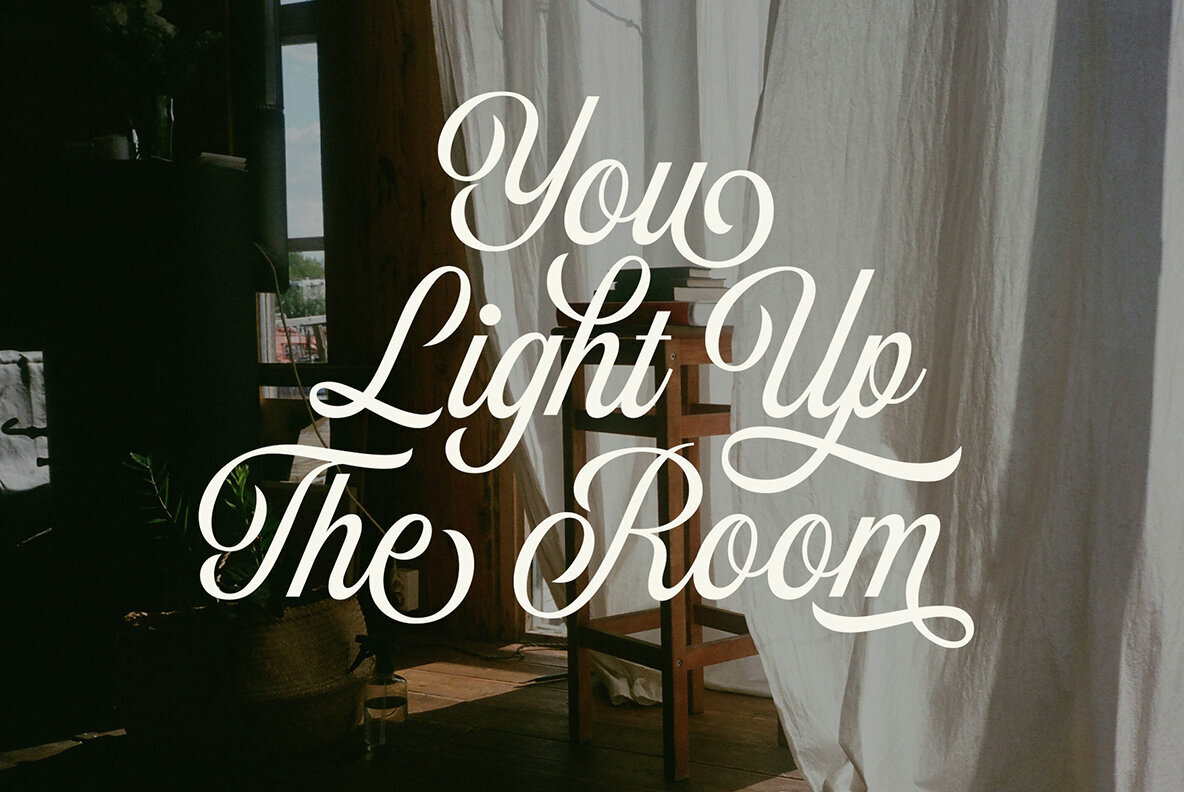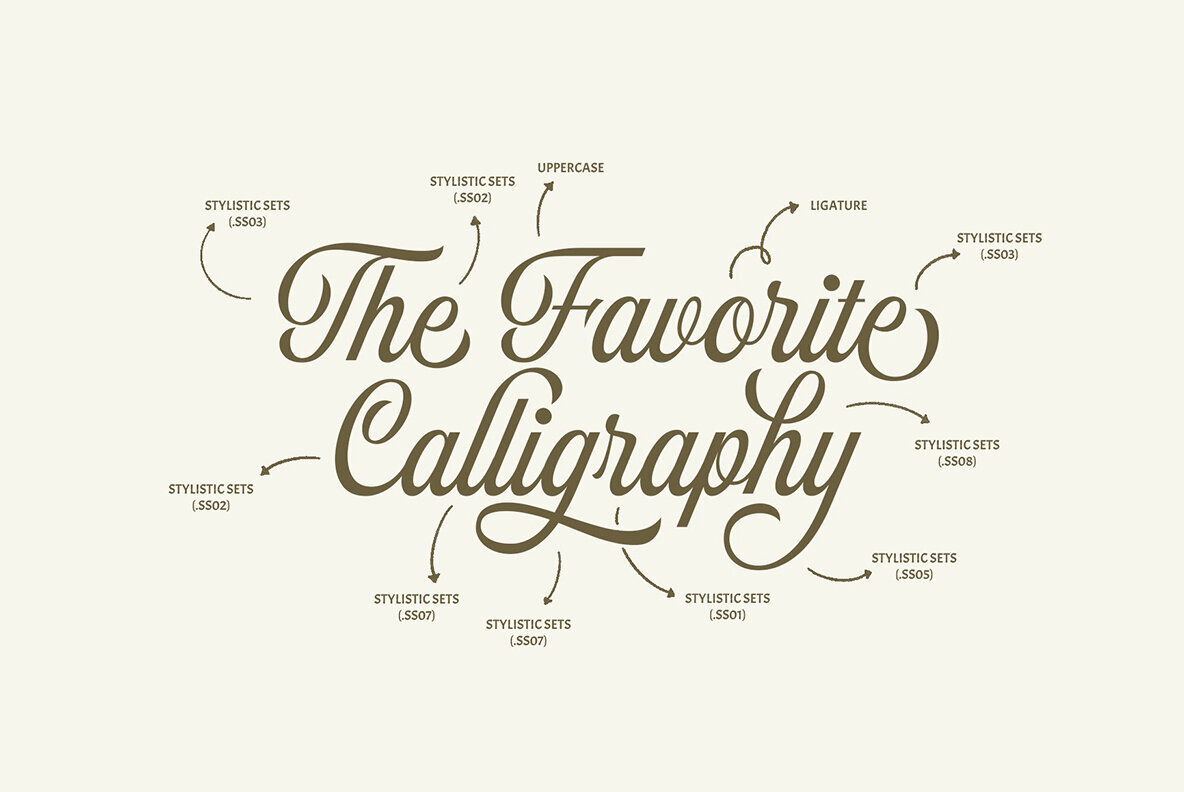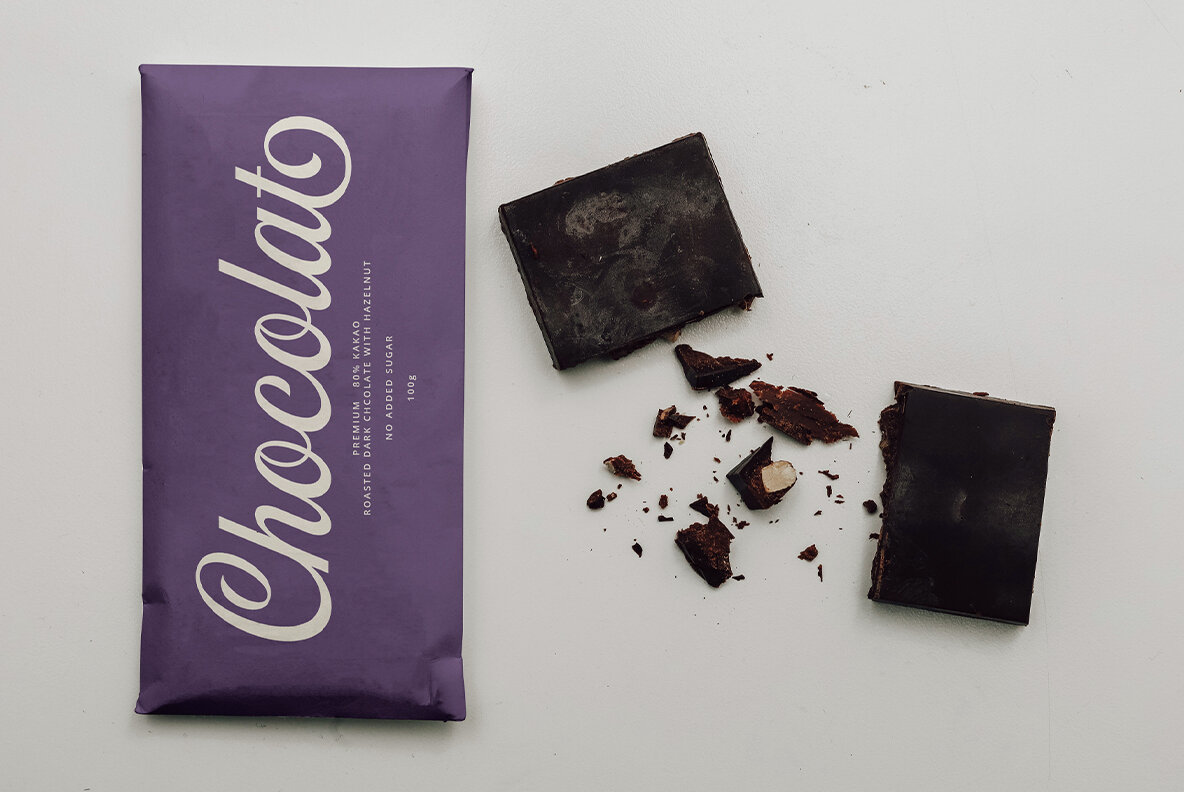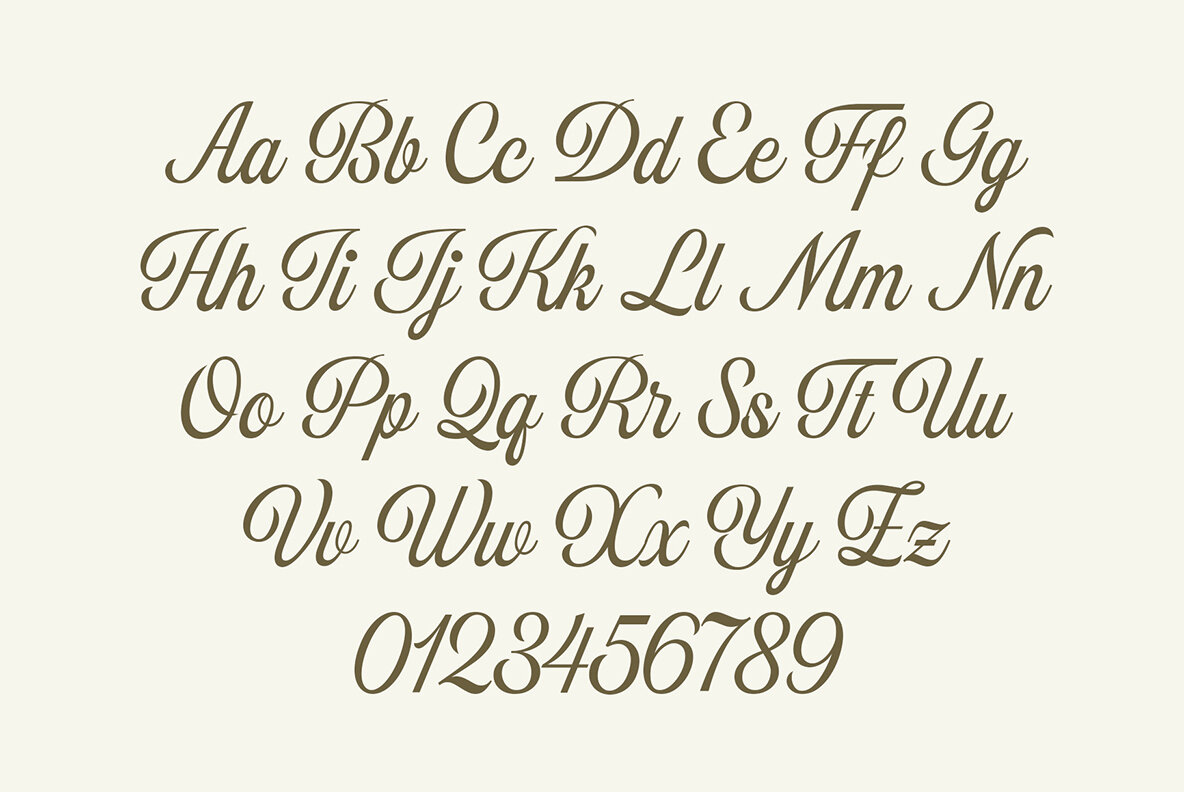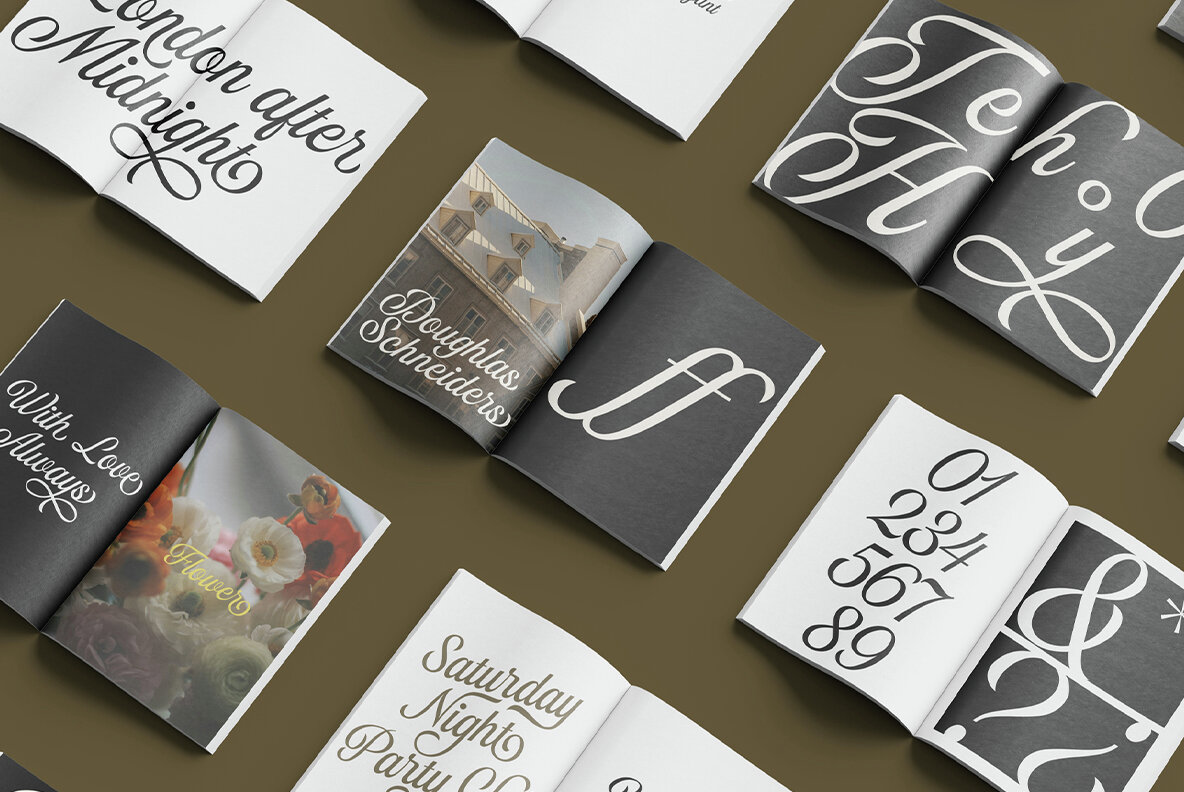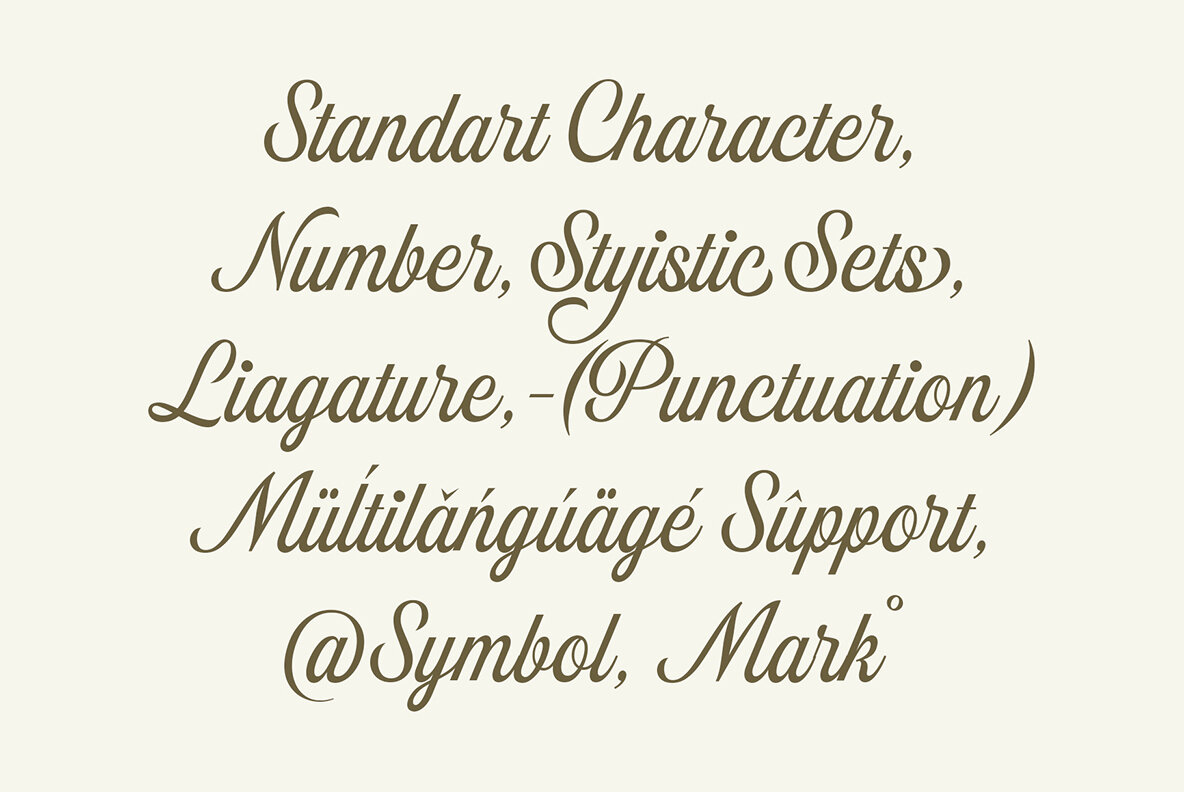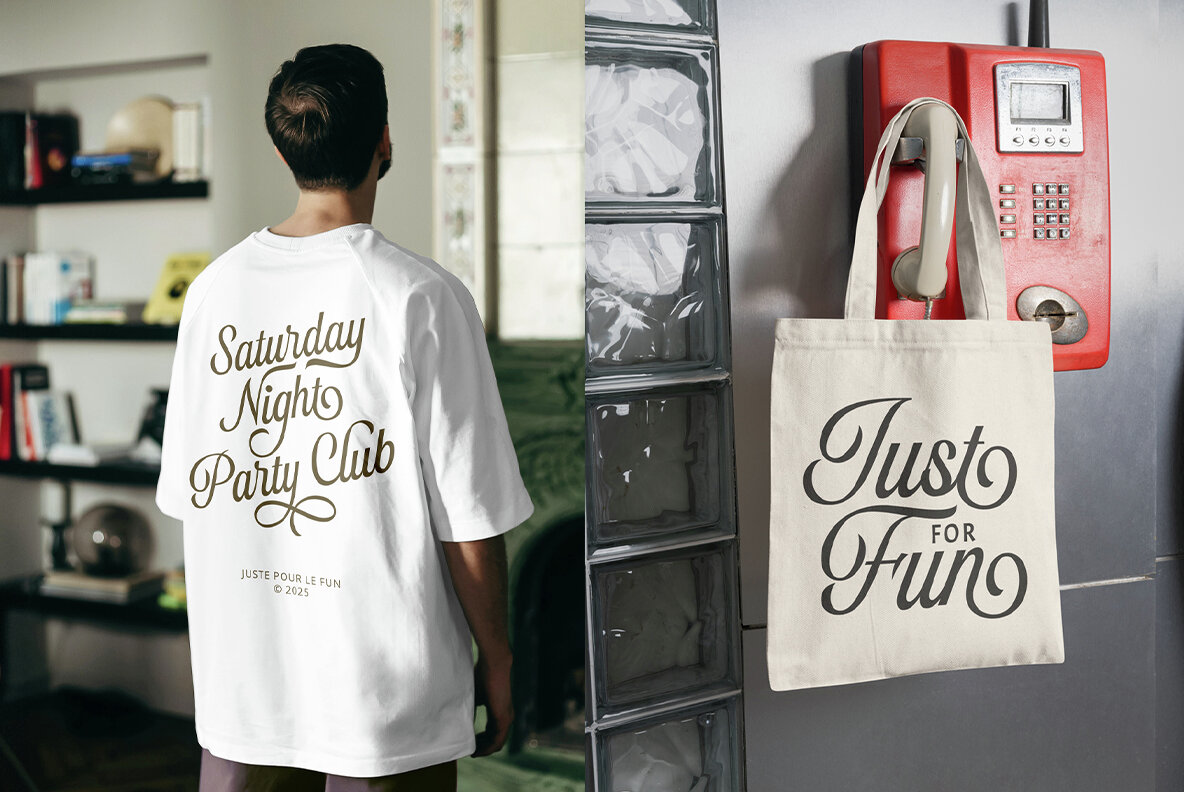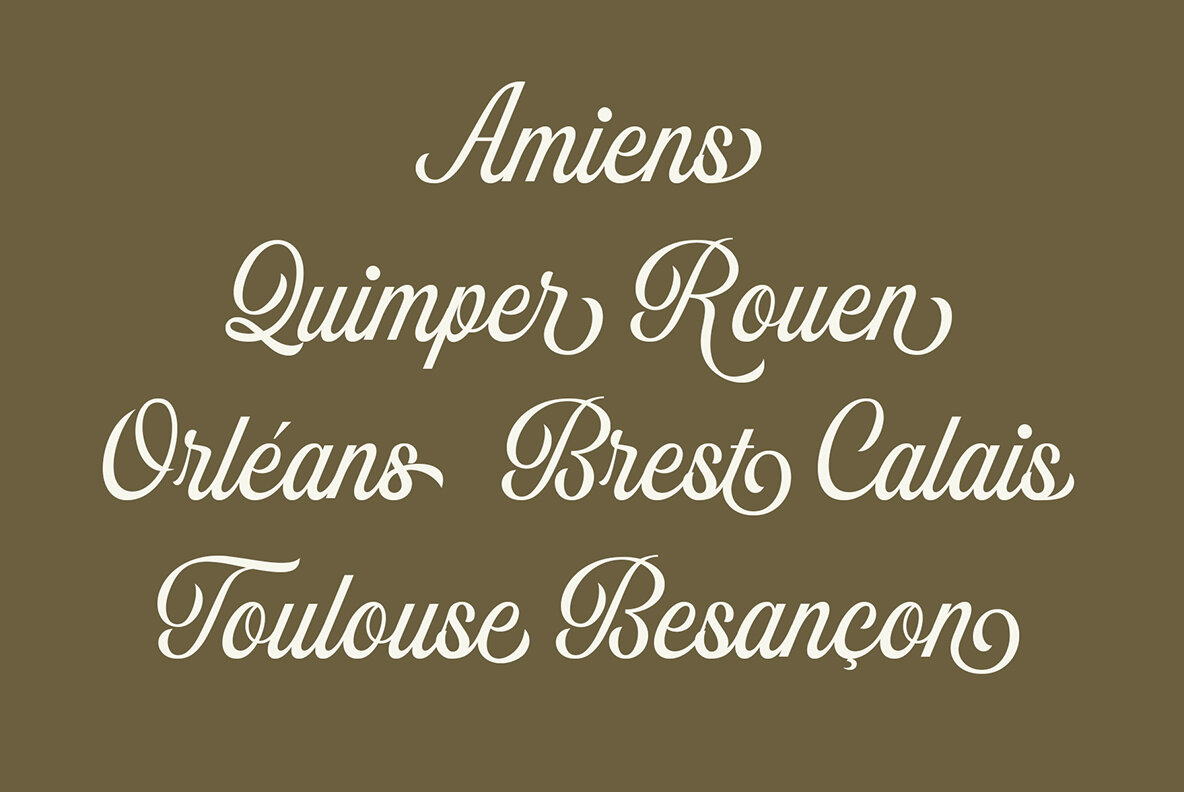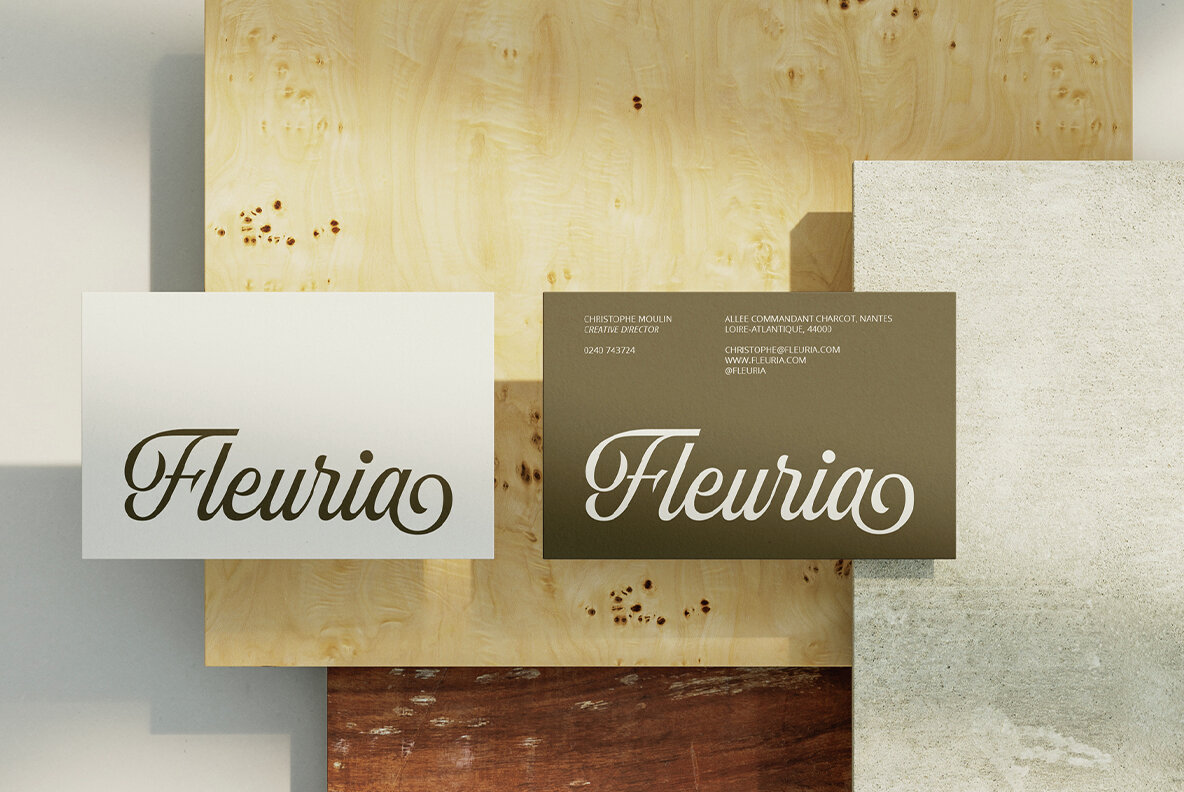
ED Bouchet Font
ED Bouchet Regular
Inspired by the beauty of sign painting, Bouchet is a script font that offers a unique and stylish character. Each letter and number in this font has its own charm, creating a distinctive and captivating look. In addition, this font is equipped with OpenType features such as a stylistic set of up to 150 which gives you a variety of letter variations, ligatures, and multi-language support. This font is perfect for logo designs, invitations, posters, and various other graphic design projects.